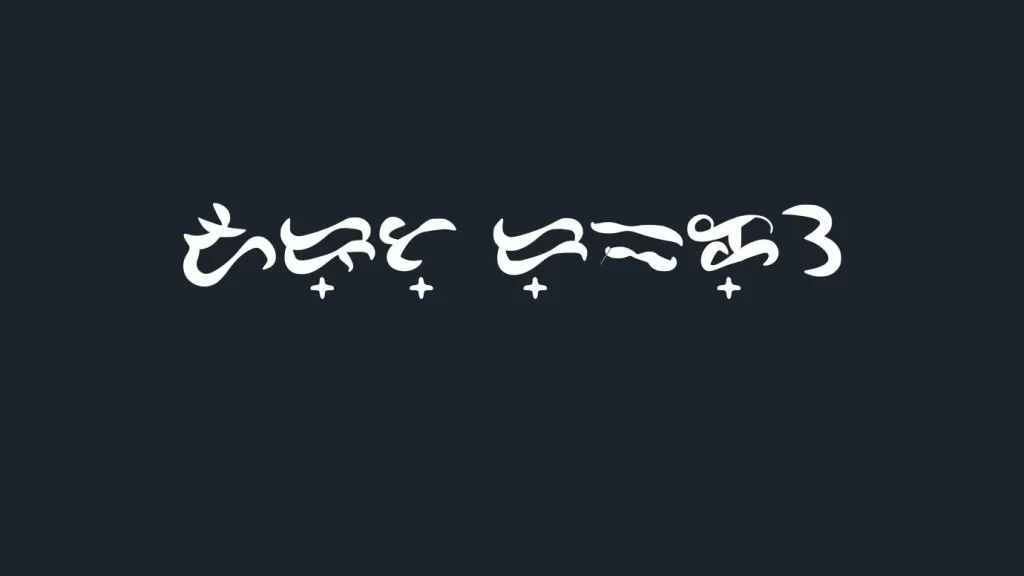
Baybayin Doctrina Font is a creative and animation design that is appropriate for making amazing content. This excellent ding-bats font can be used to create eye-catching logos for various businesses and organizations. This mind-blowing typeface has elegant features and the style was created by Johnrel Lor.
A glamorous typeface with multiple kinds of styles, numerals, lining, and text figures. With all the bold letters in this style family, your design will look more sophisticated and classier.
This typeface has fascinating, unusual glyphs that make it perfect for display needs. For individuals looking for a traditional literary approach, this typeface is a fantastic option. In fact, even in small sizes, it is incredibly bright and beautiful.
The fashionable Baybayin Doctrina Font may be used to create stunning cards, as well as posts on social media. There is no doubt that this typeface is very popular among designers and people use it for their purposes due to its soft and unique look. You can make new designs in Canva to attract the target audience through your creative work.
This style may also be used to create elegant designs, which are ideal for many designers to use in their artwork, among other things. This contemporary typeface can be used for creating newspaper text designs and text-style collections.
It is idealized for logos, labeling, notices, publications, websites, and more. The main idea behind creating this typeface is to provide unique but functional designs that would be ideal choices among different typefaces. The text design provides unique and efficient designs.
It is easy to use Baybayin Doctrina Font. To make use of this interesting style of writing. This typeface is appropriate for use when designing eBooks and electronic book covers.
This mind-blowing typeface has elegant features and the style was created by Johnrel Lor. Baybayin Doctrina’s design can be used to create interesting covers, shop names, and logos.